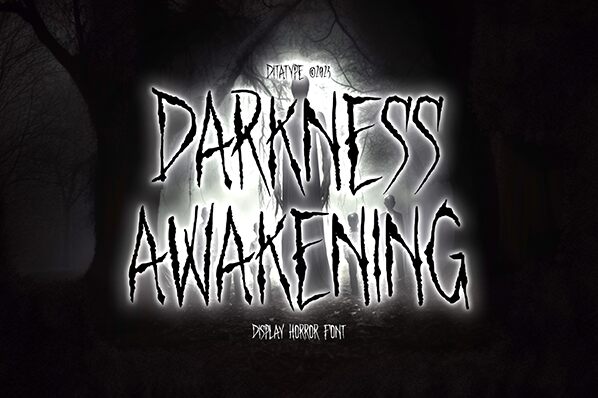
Darkness Awakening font by Ditatype is a scary and condensed light display font with a jagged edgy edge. It features thin and condensed letters whose dark personality will bring an eerie atmosphere to all projects. Each character looks like it has been handwritten in a moment of fear making it evoke mystery and put you into a chaotic state of mind. An influence from the gothic era can also be noticed thanks to the texture, rhythm, and contrast.
All typical horror use cases immediately find their solution within this free font; book covers, movie posters, YouTube videos designing, photo editing related to Halloween, typography wall art design ideas for haunted places and graveyards or cemetery location naming sign designs. Logos are also possible as well as packaging labels for your artistic brands brought up during the scariest night of the year!